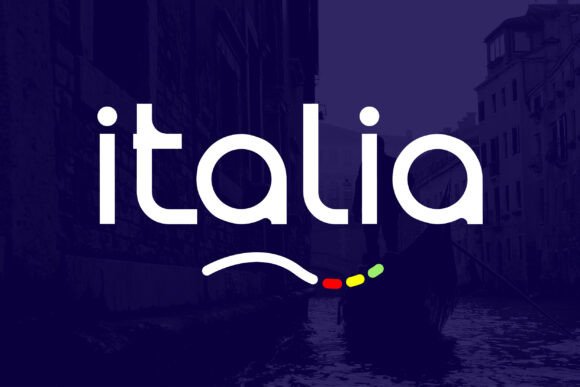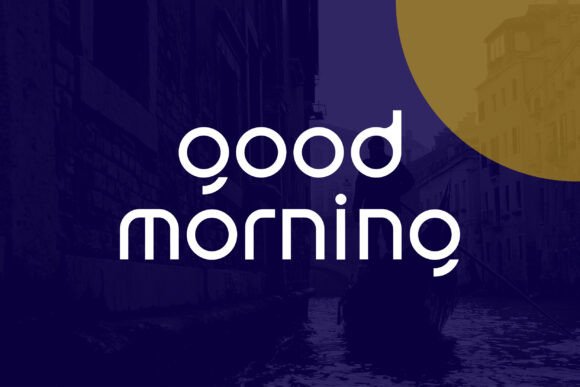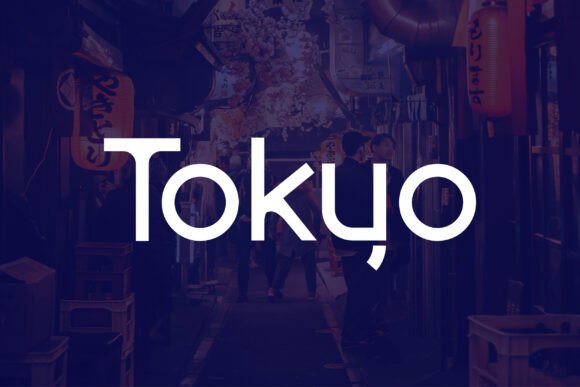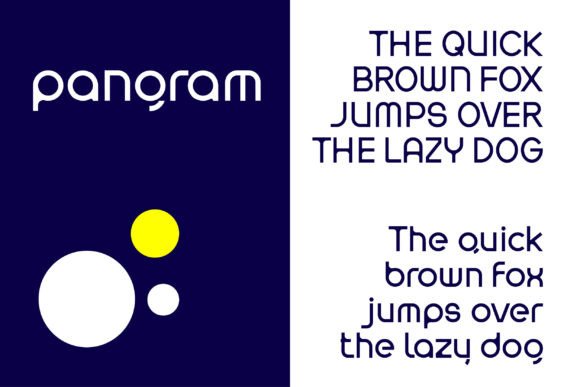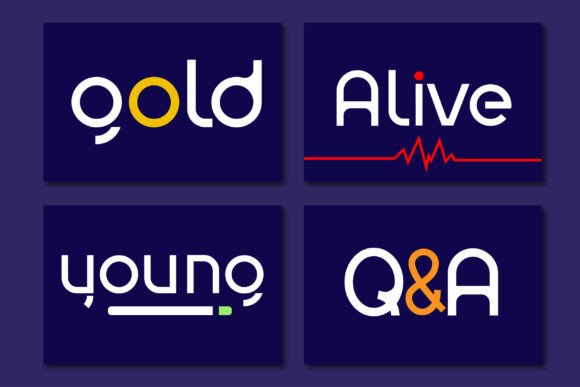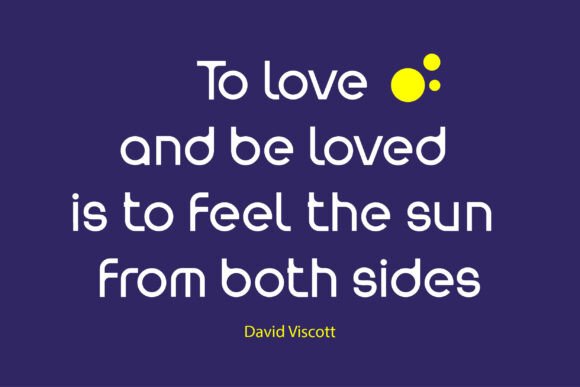
Gondola Font: Elevate Your Branding with a Modern Sans-Serif Logo Font
In the realm of typography, a font can make or break the visual identity of a brand. For designers and crafters seeking a modern sans-serif logo font that embodies precision and creativity, look no further than the Gondola font. Inspired by the elegant lines of circles with slightly rounded edges, Gondola font is poised to revolutionize your branding projects, particularly for tech companies, startups, and futuristic ventures.
The Design Philosophy Behind Gondola Font
Gondola font is not just another addition to the vast sea of sans-serif fonts. Its design is deeply rooted in the concept of blending simplicity with a touch of sophistication. The circular inspiration gives it a friendly, approachable feel, while the slightly rounded edges add a layer of warmth and humanity. This unique blend makes Gondola font versatile and adaptable to various branding needs.
Key Features of Gondola Font
- Modern Sans-Serif Design: Gondola font boasts a clean and contemporary look, making it perfect for brands aiming to appear modern and forward-thinking.
- Circular Inspiration: The subtle circular influence in its design gives Gondola a distinctive edge, setting it apart from more traditional sans-serif fonts.
- Slightly Rounded Edges: This feature adds a softness to the font, making it more approachable and endearing to the audience.
- Precision and Creativity: The Gondola font strikes an excellent balance between precision and creativity. Its clean lines and geometric shapes ensure legibility and professionalism, while its unique design elements inject creativity and personality.
Who Can Benefit from Gondola Font?
Gondola font’s versatile nature makes it suitable for a wide range of applications, but it particularly shines in projects where a modern, tech-savvy feel is desired. Here are some of the primary beneficiaries:
- Tech Companies: For tech firms, establishing a brand identity that communicates innovation and reliability is crucial. Gondola font, with its modern and precise design, can help achieve this.
- Startups: Startups looking to make a significant impact with their branding can leverage Gondola font to convey a sense of dynamism and forward-thinking.
- Futuristic Projects: Any project with a futuristic theme or aspiration can benefit from Gondola font’s sleek and modern aesthetic.
How to Use Gondola Font Effectively
To truly harness the potential of Gondola font, consider the following tips:
- Pair with Complementary Fonts: While Gondola font can stand alone, pairing it with complementary fonts can enhance its versatility and create visual interest.
- Experiment with Sizes and Weights: Don’t be afraid to experiment with different sizes and weights of Gondola font to create a hierarchy of information and add depth to your designs.
- Consider Color Psychology: The color you choose for Gondola font can significantly impact its effectiveness. Select colors that align with your brand’s personality and message.
Gondola font is more than just a typeface; it’s a tool for designers and crafters to create compelling, modern branding projects. Its unique blend of circular inspiration, precision, and creativity makes it an invaluable asset for anyone looking to make a statement in the tech, startup, or futuristic sectors. With Gondola font, the possibilities are endless, and the potential for creating memorable brand identities is vast.
Whether you’re designing a logo, a website, or marketing materials, Gondola font offers the versatility and aesthetic appeal needed to elevate your projects. So, why settle for ordinary when you can create something extraordinary with Gondola font?